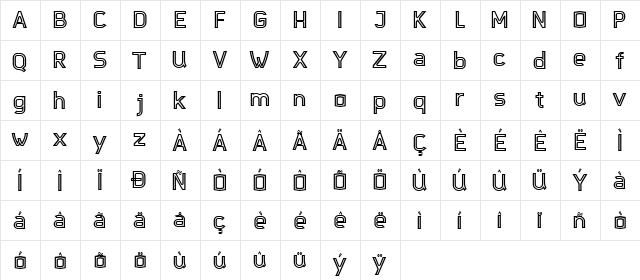
Djavaloca-Inline - DEMO Regular
Design Context for Djavaloca-Inline - DEMO Typeface
Djavaloca-Inline - DEMO brings ornamental detail and strong personality to headlines and identities, where visual impact matters more than quiet functionality.
Font Pairing: Pair with a clean neutral sans-serif for body copy to let Djavaloca-Inline - DEMO's character lead without overwhelming the composition.
Pro Tip: Use Djavaloca-Inline - DEMO exclusively at display sizes — it was designed to be seen, not read at length. Let a neutral companion handle body copy.